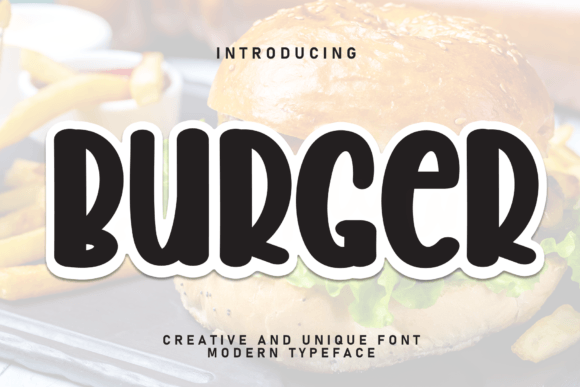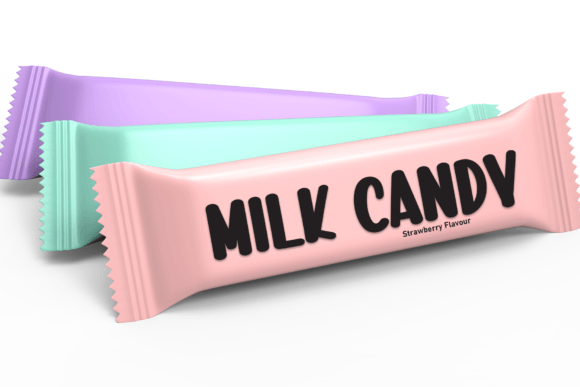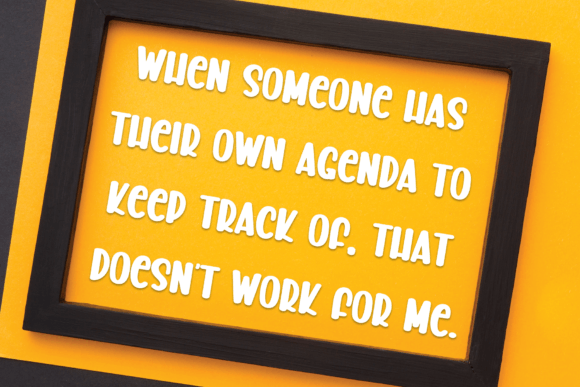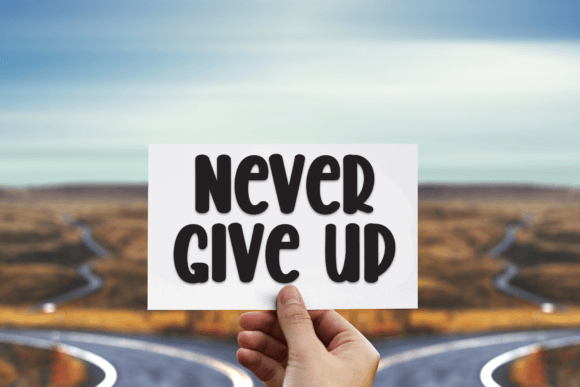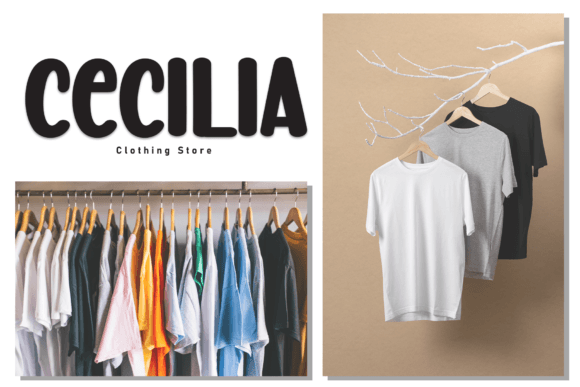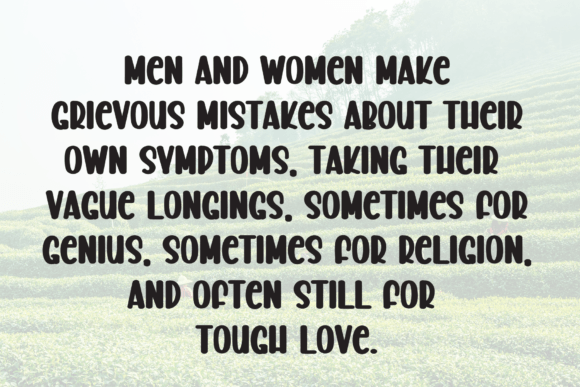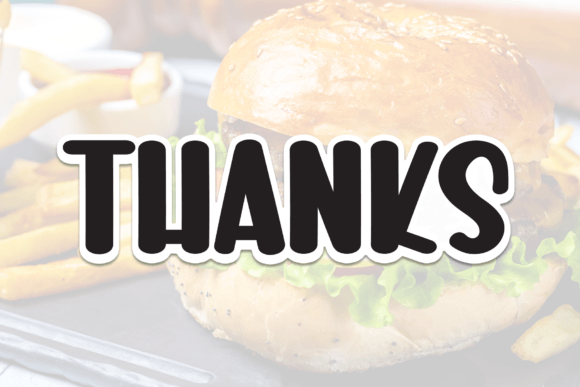
The Perfect Bite: Unlocking the Magic of Burger Font
Have you ever stared at a blank canvas, mind racing with ideas, and a craving for the perfect design? It’s a familiar feeling for many creatives, and it’s exactly what inspired us to dive into the world of typography. And that’s where Burger Font comes in – a delightful, handwritten font that adds a touch of warmth and personality to any project.
Burger Font is designed to be a versatile and approachable typeface, perfect for a wide range of designs. Its natural, friendly style makes it an ideal choice for everything from branding and marketing materials to social media graphics and more. For designers, Burger Font is a valuable asset that can elevate even the most basic designs into something truly special.
Burger Font Key Features
- Unique Characteristics: The Burger Font features a modern, bold, and playful design, making it ideal for use in food-related branding, advertising, and packaging.
Burger Font Review
I recently had the chance to work with the Burger Font, and I wanted to share my honest thoughts on this font.
- Unique Design: Burger Font has a quirky and fun design that can add a playful touch to your projects.
- Customization Options: The font comes with a range of styles and weights, giving you flexibility in how you use it.
- High-Quality Rendition: Burger Font is well-made and looks great at various font sizes and resolutions.
- Limited Legibility: At smaller font sizes, the font’s unique design can make it harder to read.
- Not Ideal for Body Text: Burger Font is best used for headings, titles, or other display text where its uniqueness can shine.
Overall, Burger Font is a fun and creative addition to any project. While it may not be the best choice for body text or everyday use, it’s perfect for projects where you want to add some personality and whimsy.
Burger Font is ideal for:
- Restaurant and cafe menus
- Food-related social media posts
- Branding for food trucks and street food vendors
Alternatives to Burger Font
Montserrat is a sans-serif font that is great for use in headings and titles. It has a strong, geometric feel that works well in modern designs. Montserrat is a good alternative to Burger Font when you want a clean and minimalist look.
Comparison to Burger Font: Montserrat is more geometric and clean, whereas Burger Font has a more playful and casual feel. Montserrat is also more versatile and can be used in a wide range of applications.
Open Sans is a clean and modern sans-serif font that is great for use in body text. It has a friendly and approachable feel that works well in a variety of contexts. Open Sans is a good alternative to Burger Font when you want a font that is easy to read and understand.
Comparison to Burger Font: Open Sans is more neutral and less playful than Burger Font. Open Sans is also more legible and easier to read, especially in smaller sizes.